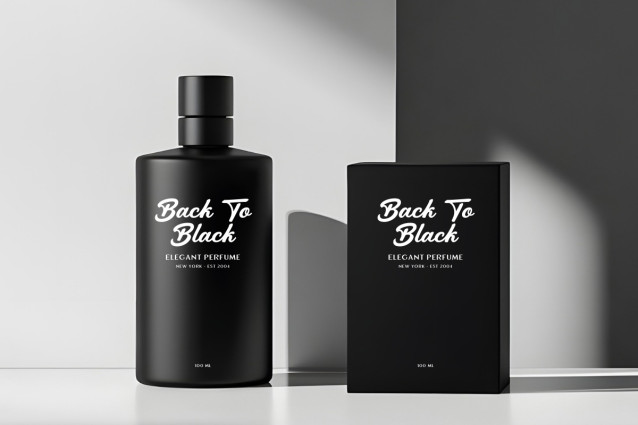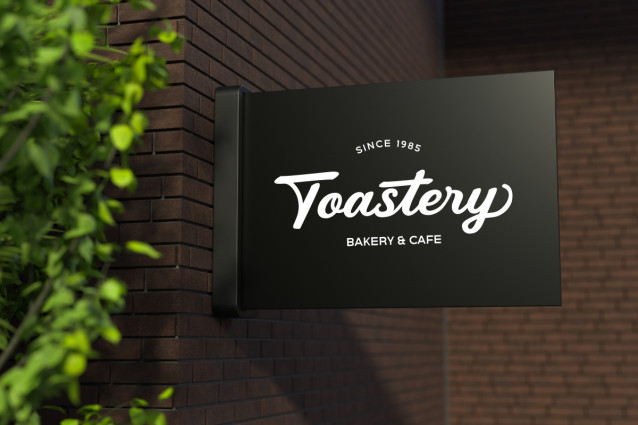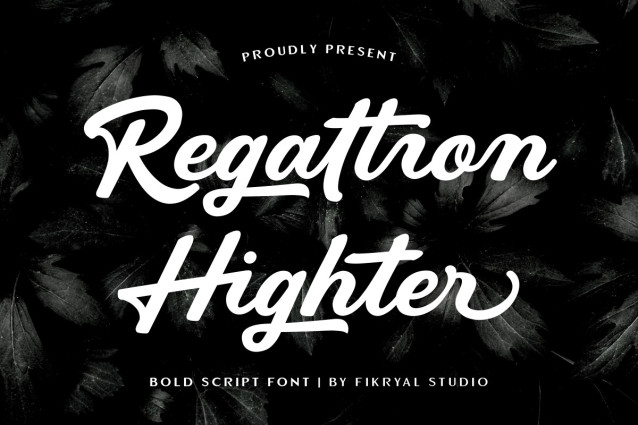
Regaltion Highter Font
Regaltion Highter Font is a bold and expressive script font designed to bring elegance, strength, and personality into your typography. Featuring thick strokes and smooth flowing curves, this font creates a confident handwritten style that stands out beautifully in both modern and classic design projects.
This font comes with an impressive collection of 210 ligatures, allowing letters to connect naturally and create a more authentic handwritten look. In addition, 62 alternate characters give designers the freedom to explore multiple stylistic variations, making every composition feel unique and dynamic.
To make the font more versatile, Regaltion Highter supports 89 multilingual languages, making it suitable for global design projects and international brands.
Whether you are creating logos, branding identities, product packaging, social media graphics, or wedding designs, Regaltion Highter delivers a bold yet elegant script appearance that enhances visual impact.
Its combination of bold lettering, smooth curves, and rich ligature features makes this font perfect for designers who want to achieve a stylish, professional, and high-end look.